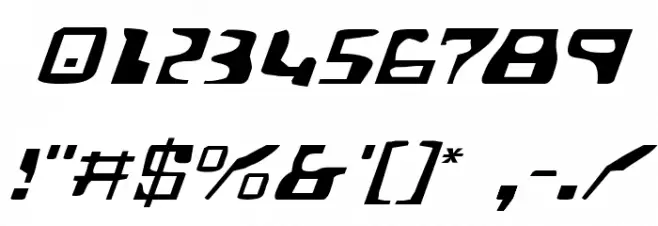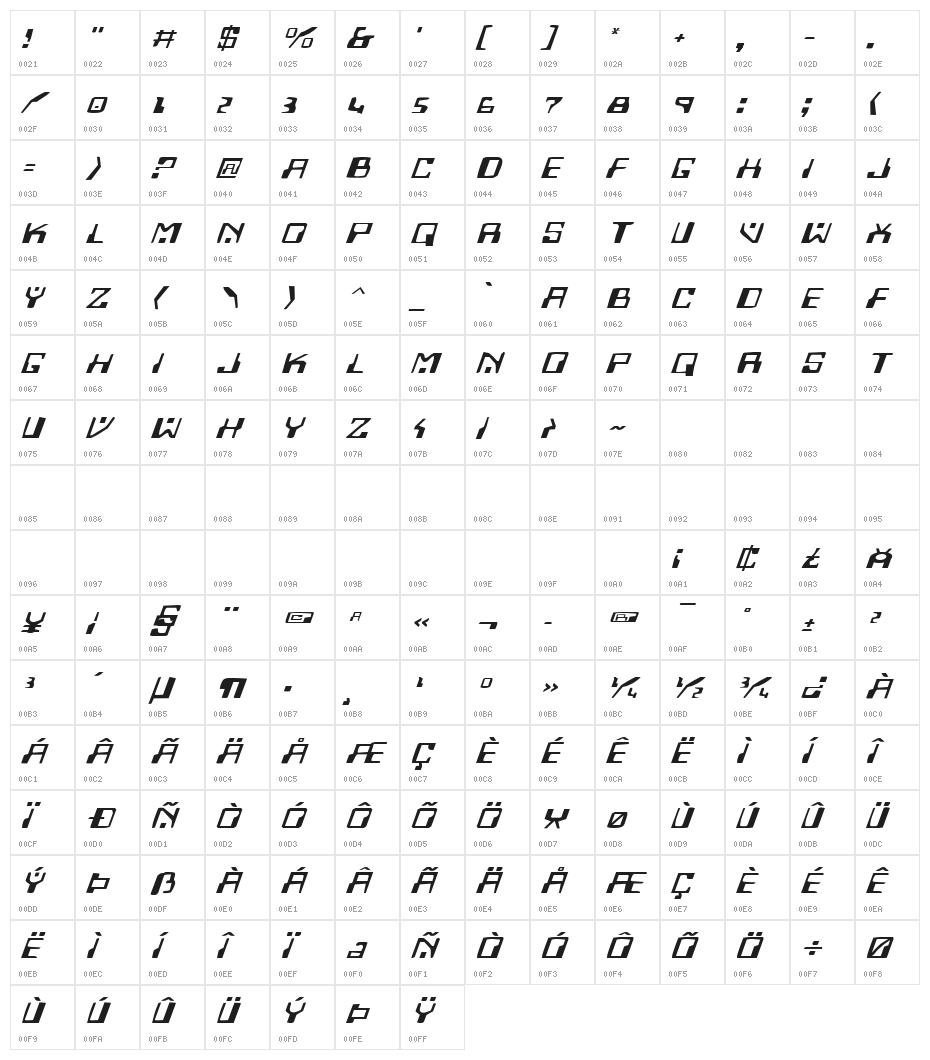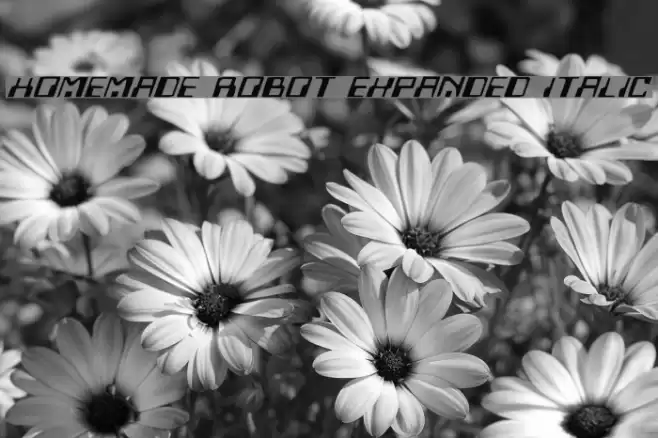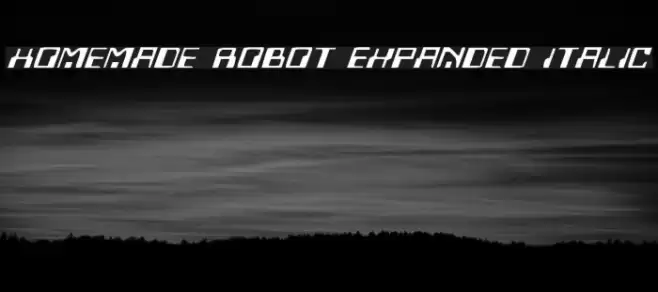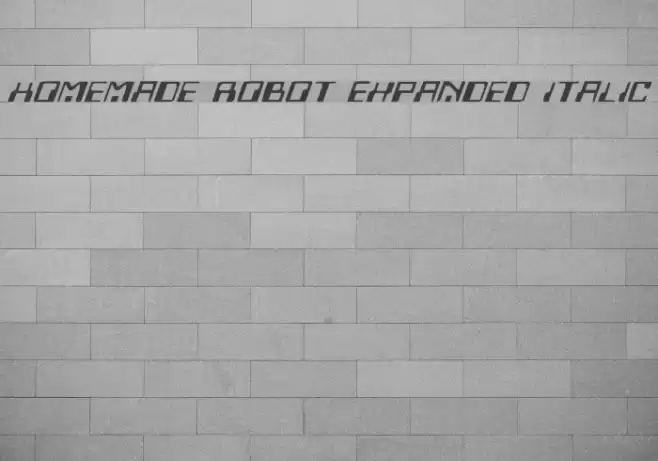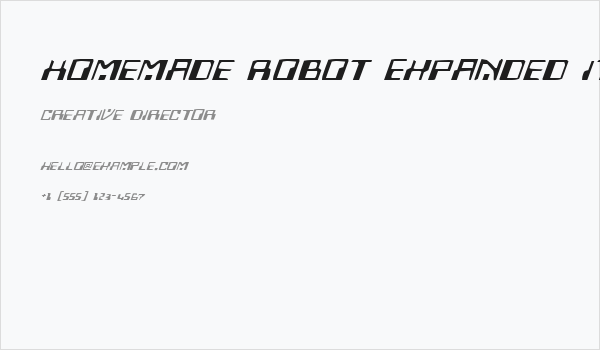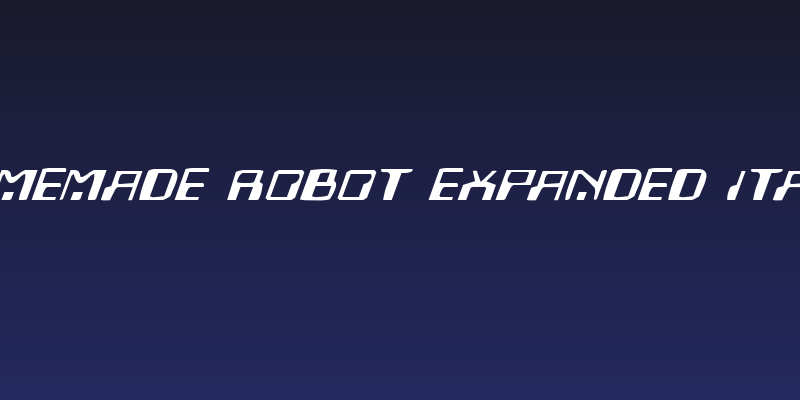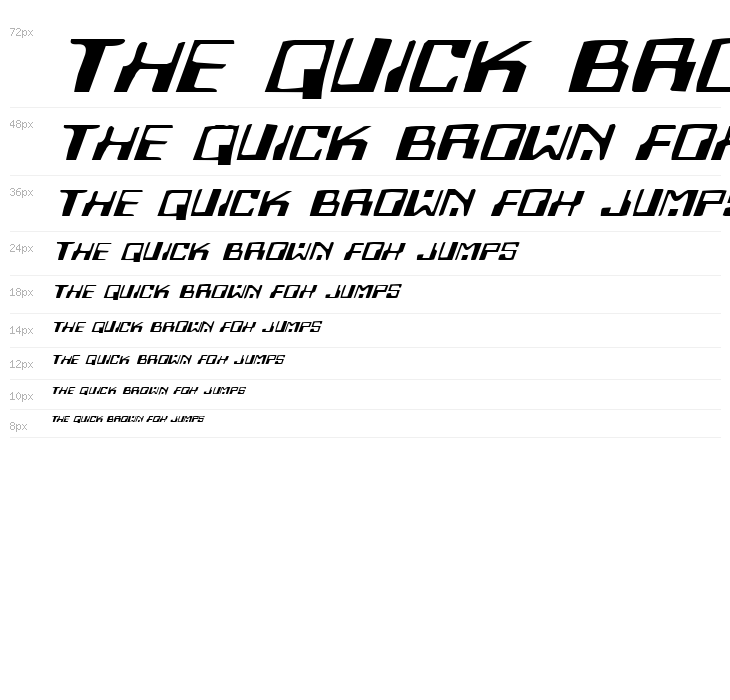
Homemade Robot Expanded Italic Font
Homemade Robot Expanded Italic Description
This font features a futuristic and angular design, characterized by its sharp edges and geometric shapes. The letters are italicized, giving a sense of motion and dynamism. The expanded width of the characters provides a bold presence, making it suitable for attention-grabbing headlines. The uppercase and lowercase letters maintain a consistent style, with the numerals and special characters following the same design principles. The overall appearance is modern and tech-inspired, ideal for projects that require a contemporary and edgy look.
| Proposed Projects | Ideal for tech-related branding, sci-fi movie posters, video game titles, and modern advertising campaigns. |